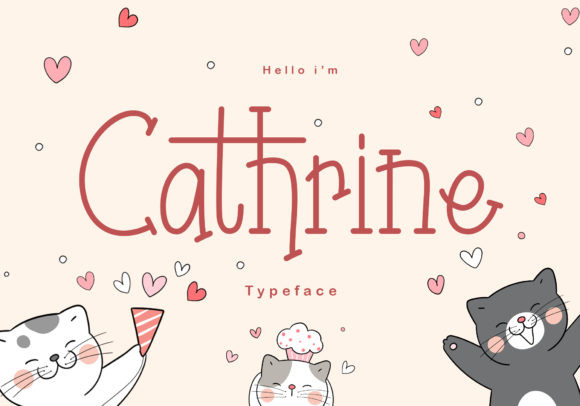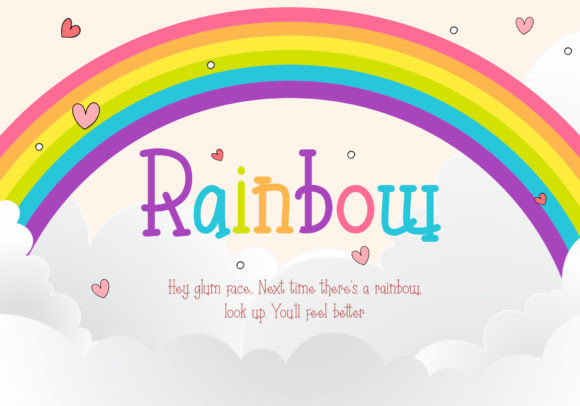
Chatrine Script Font
Cathrine embodies fun, quirkiness and authenticity. This enchanting display font will turn any creative idea into a true standout.